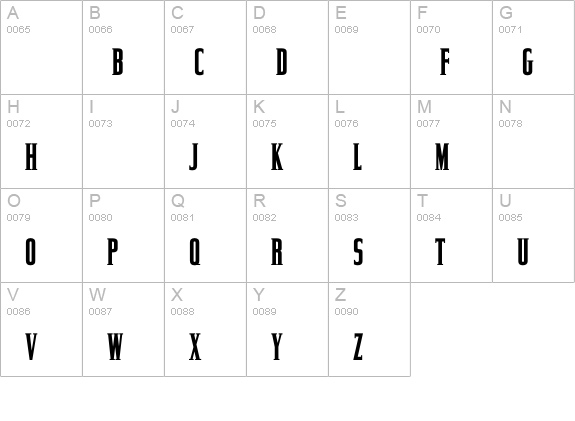
CommanderBold font is a powerful and commanding typeface that exudes strength and authority. Its bold and striking design makes a bold statement, perfect for headlines, titles, and branding. With its clean lines and distinct presence, CommanderBold demands attention and leaves a lasting impression. What sets CommanderBold apart is not just its commanding appearance, but also the fact that it is available for free download at FontsMarket.com. This means that you can access this impressive font at no cost, making it a valuable addition to your design arsenal. Whether you're working on a poster, logo, or any other project that requires a bold and impactful font, CommanderBold is sure to deliver the impact you need. Download CommanderBold today and unleash its commanding presence in your designs.